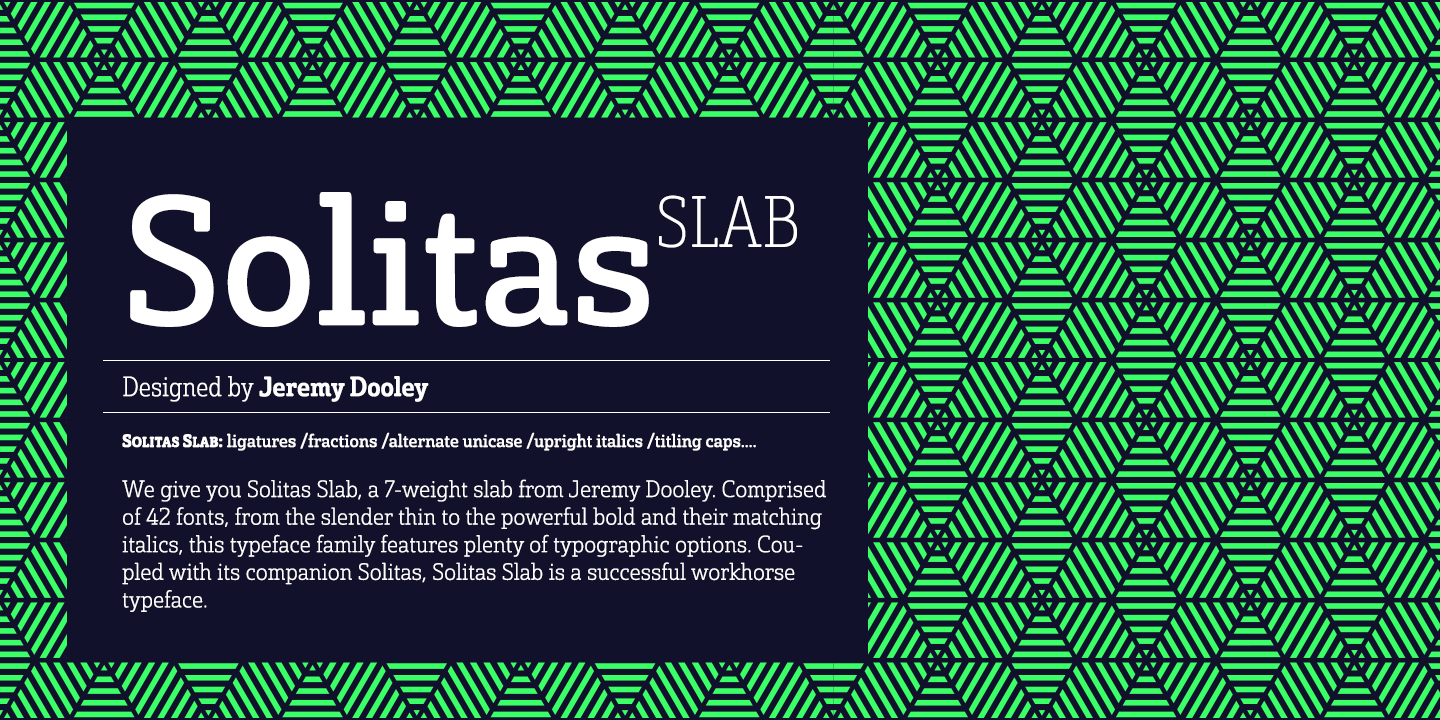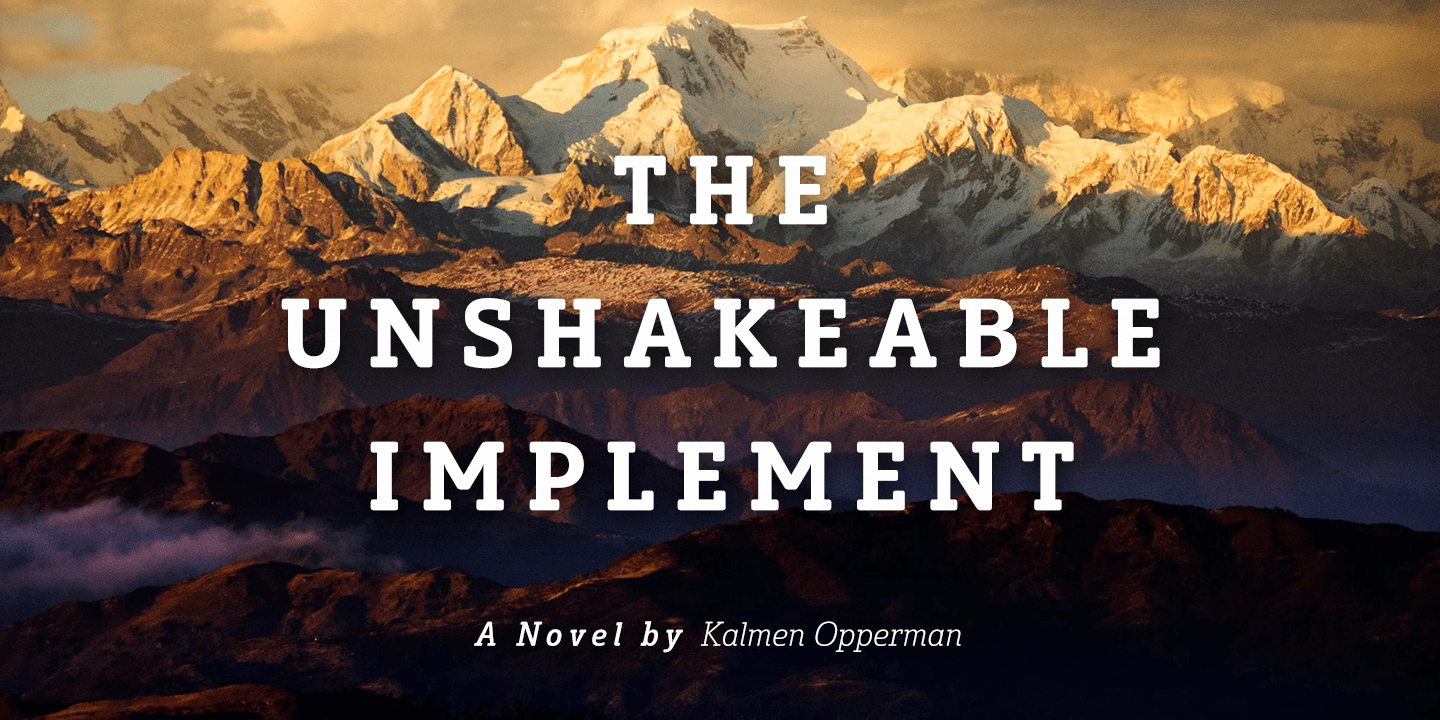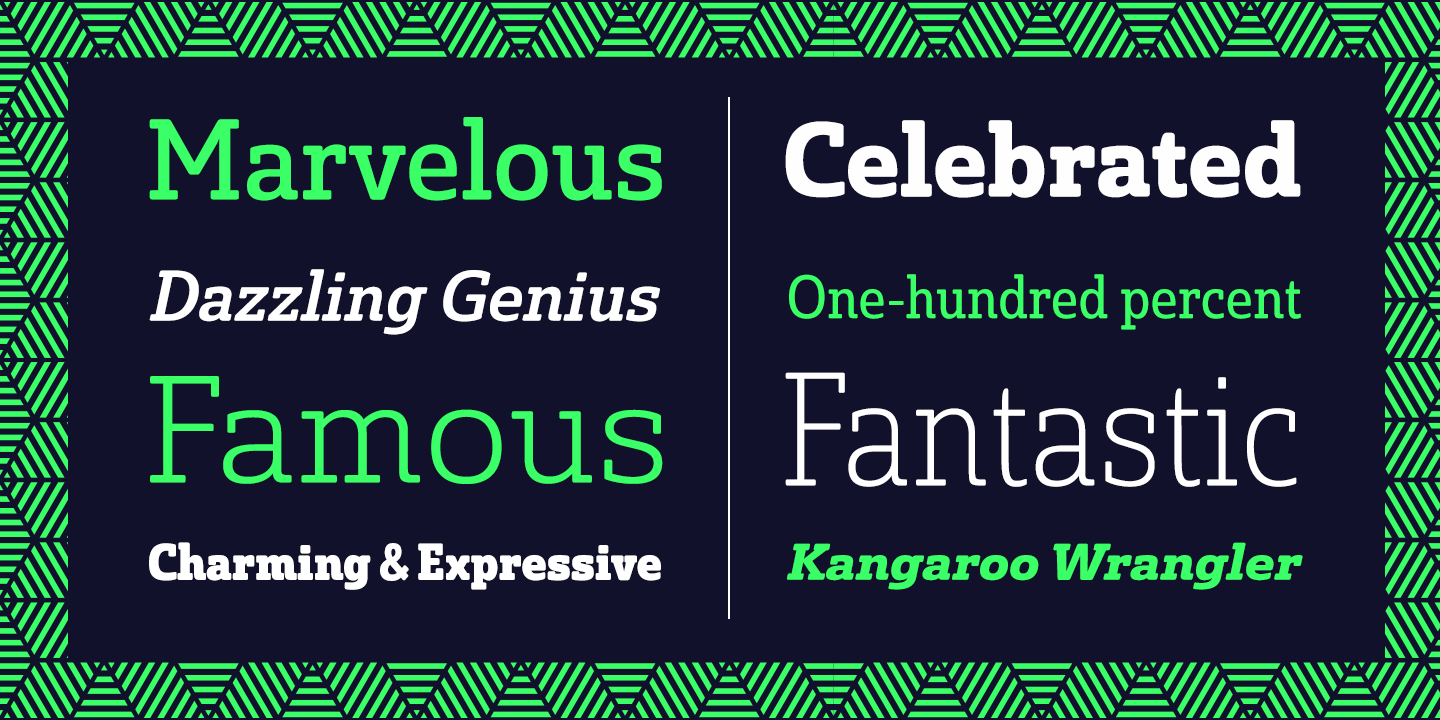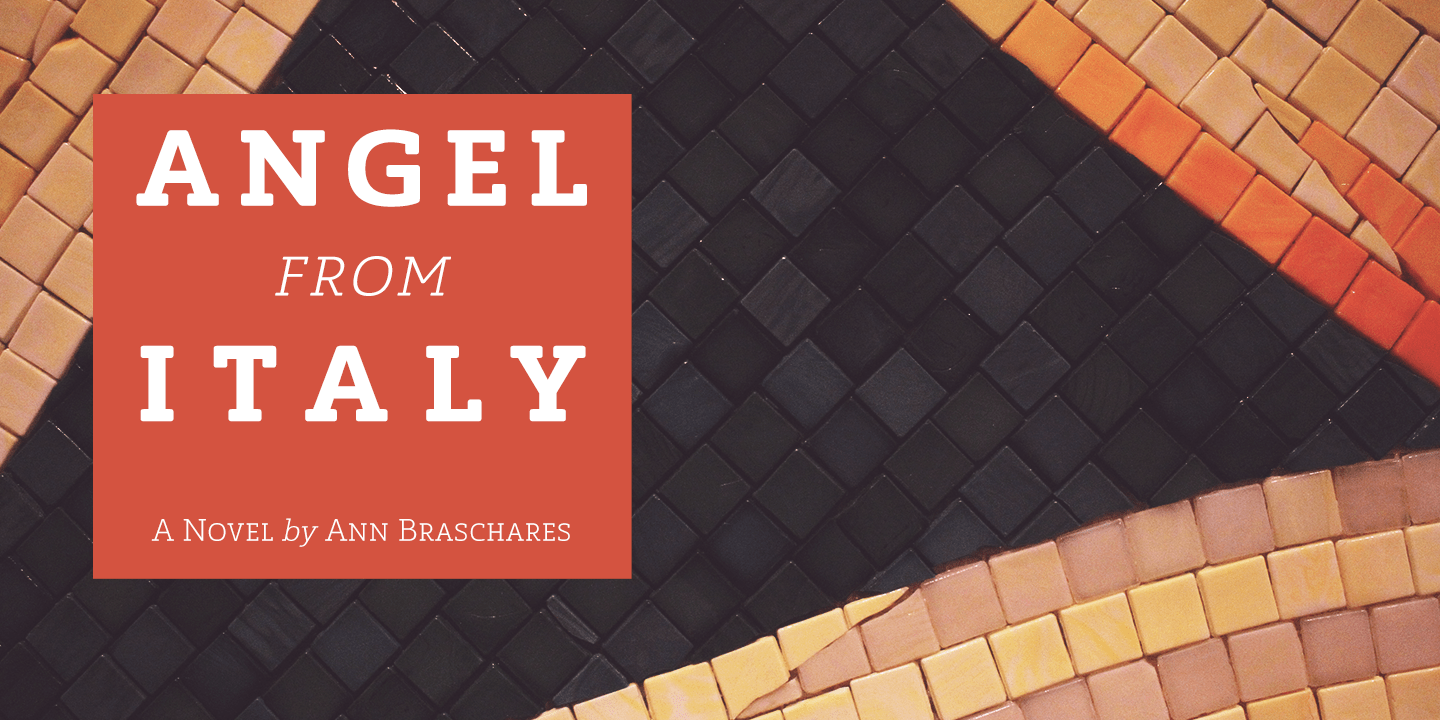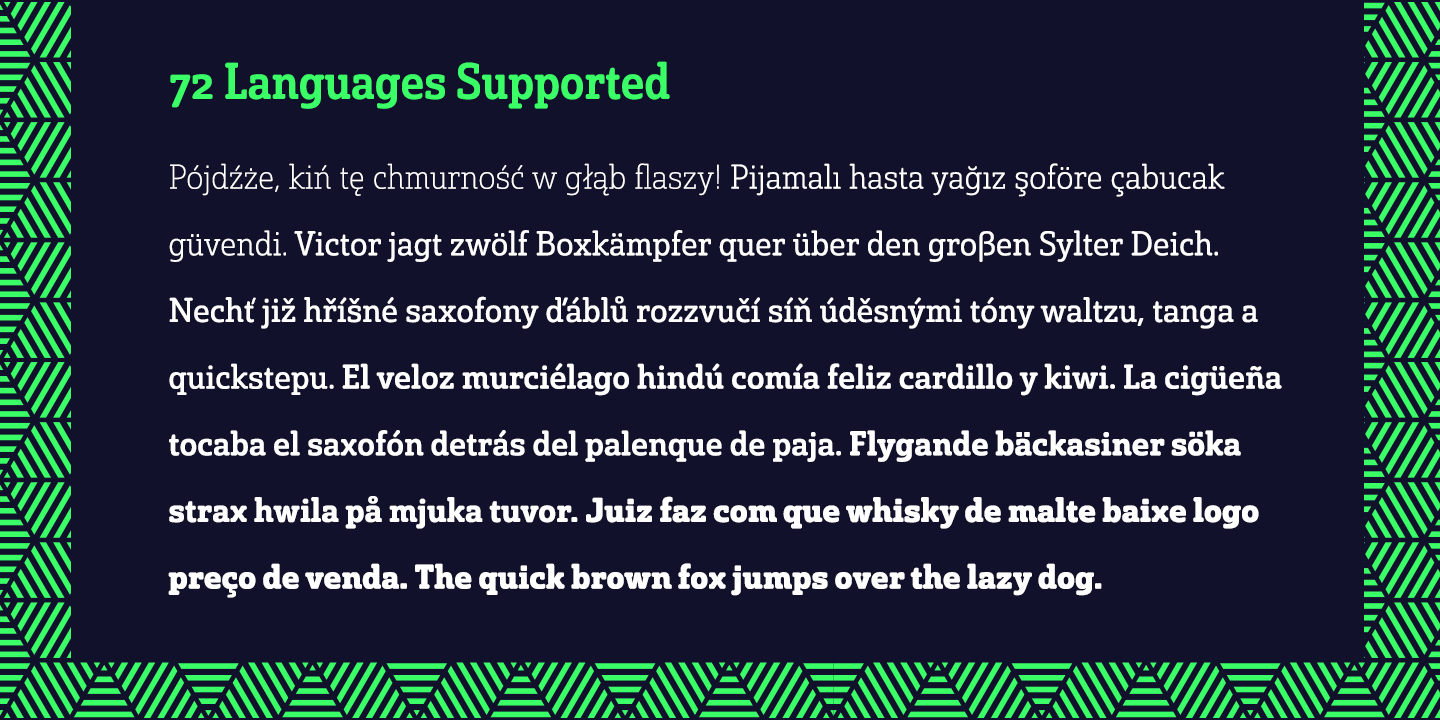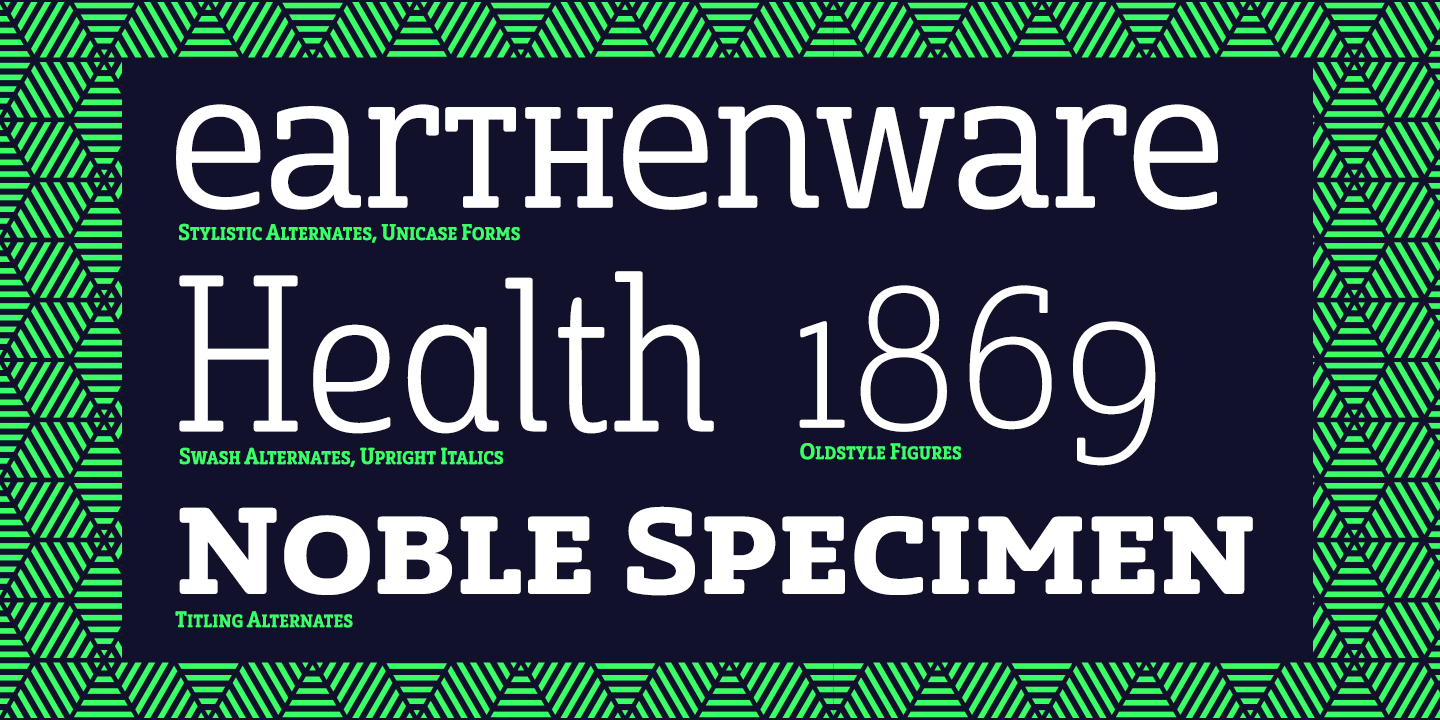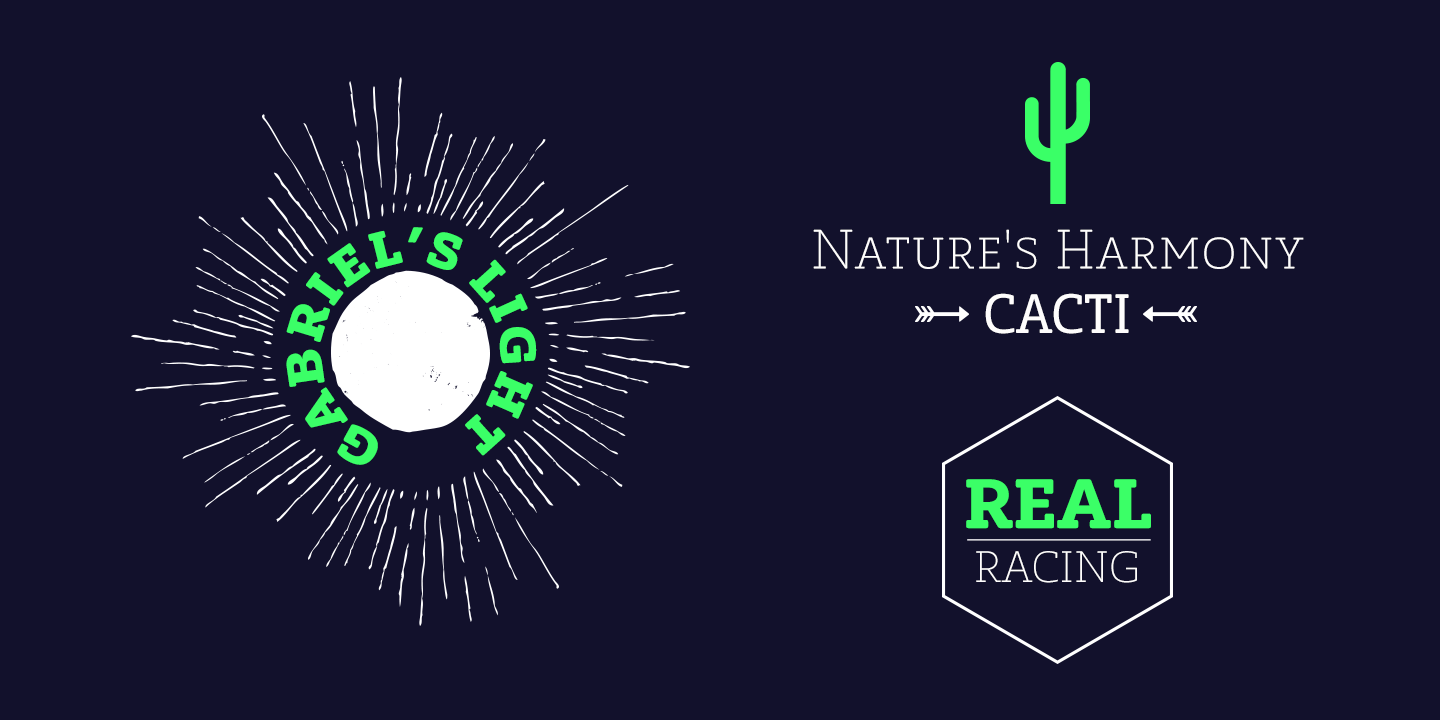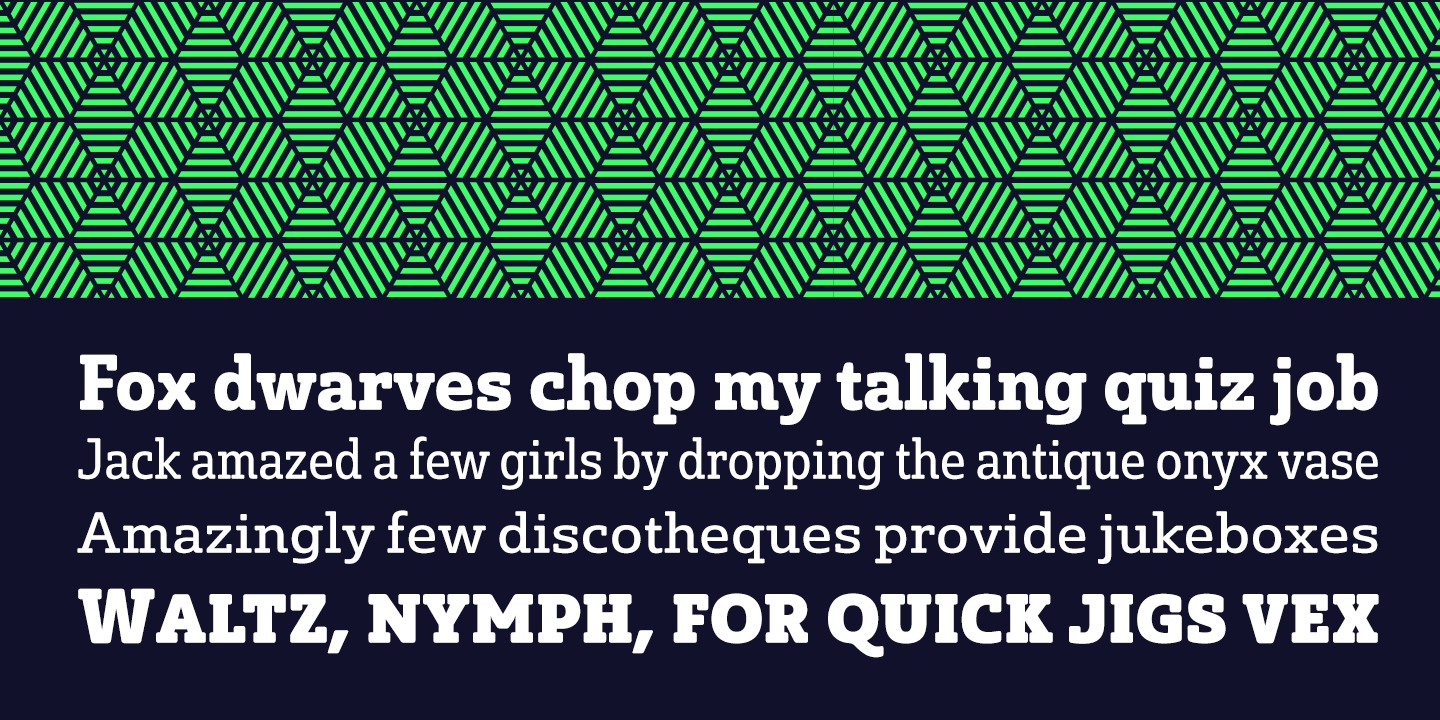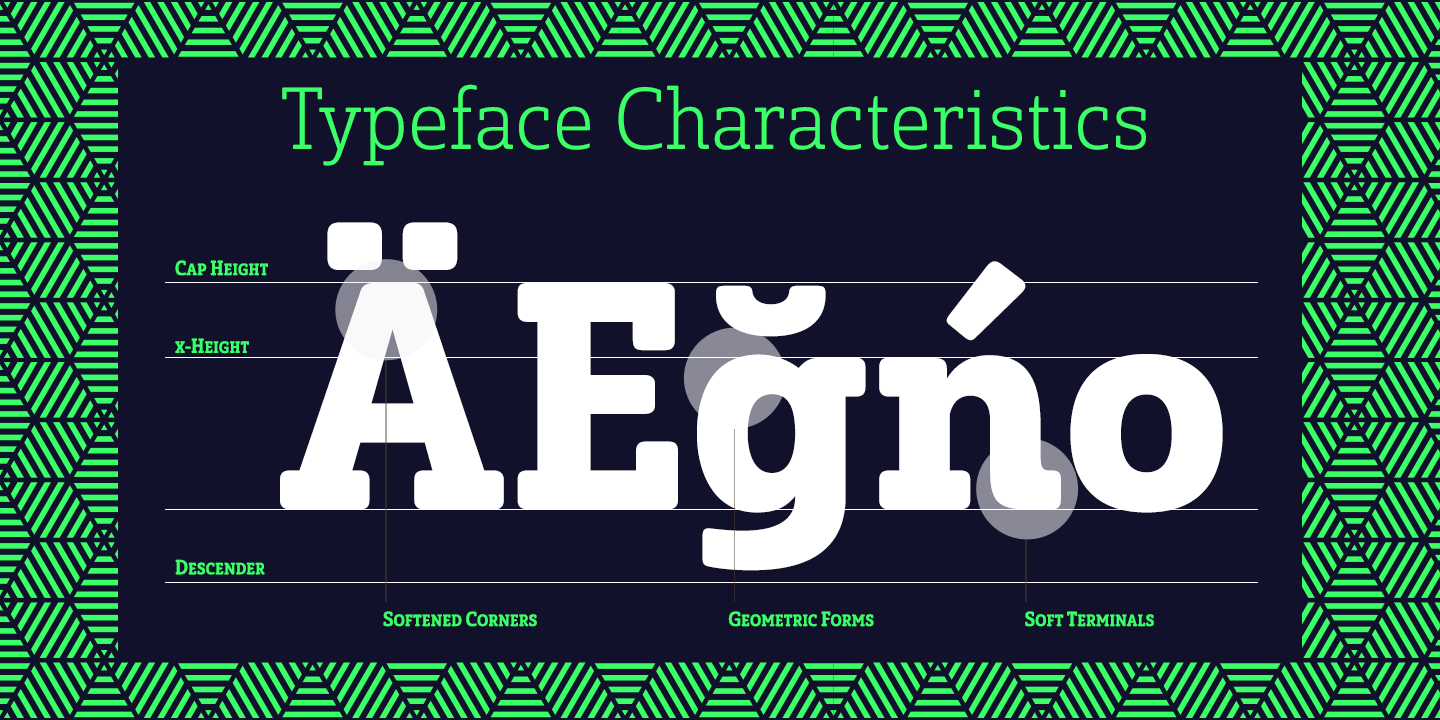
Solitas Slab
Slab serif, meet the curves of Solitas. The new slab sister of insigne's successful Solitas family will turn your head with its soft, but distinct look. Solitas Slab defies the typical feel of the robust slab category with her more compact structure and rounded corners to create a confident charm that complements everything sweet from cookies and puppies to whiskers on kittens.
Solitas Slab offers you a full suite of 42 well-rounded fonts that read well both in print and online. Its round, open letter types make it quick to read, and the intermediate weights execute impeccably for copy, while bolder versions make expressive headlines and subheadings. Using its subtle geometry, its seven weights and three widths along with its optically adjusted italics tackle even the most complicated, ambitious typography with heart-warming grace and poise.
Solitas Slab OpenType options include titling caps, small capitals, ligatures, ordinal characters, fractions, numerator and denominator as well as superscript and subscript. Solitas Slab also supports Western European, Central and Eastern European languages.
Enjoy the softer side of Solitas Slab today for your packaging, web, or print. You'll soon find this friendly font to be one of your favorite things.